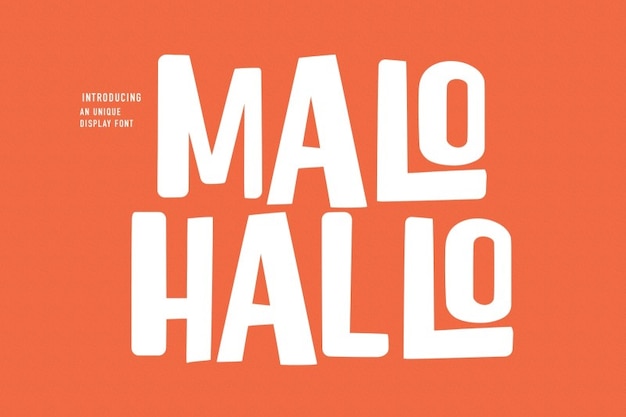
Malohallo Font
Malohallo is a bold, experimental font that draws inspiration from the vibrant allure of marquee lights. With its striking shapes and dynamic design, it captures attention while adding a sense of excitement to any project. Perfect for signage, posters, and branding, Malohallo brings a theatrical flair, making your message shine brightly and stand out in a crowd. Ideal for designs that want to dazzle and impress!